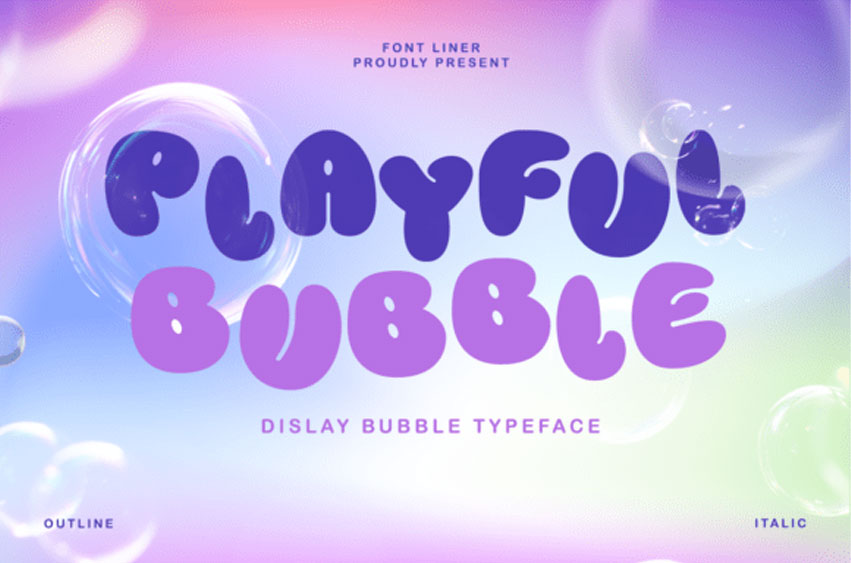
Playful Bubble Font is a bubbly and bold display font that radiates joy and creativity. With its rounded, inflated letterforms and quirky personality, this font is perfect for kids’ projects, toy packaging, games, party invites, and anything that needs a pop of fun.
Available in outline and italic styles, it’s a versatile and eye-catching typeface that brings smiles to every design.